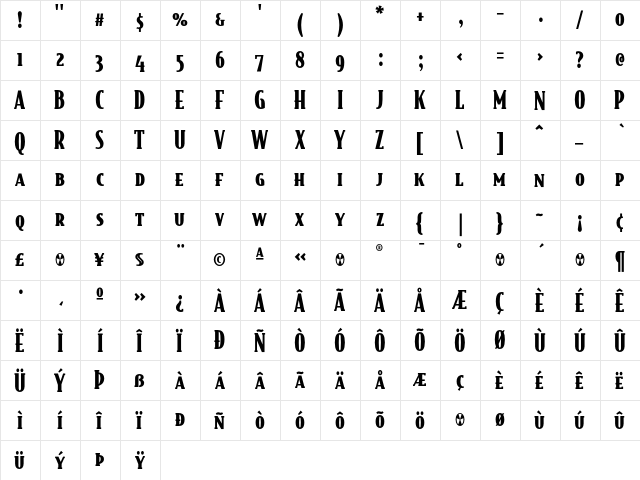
BodegaSerif BlackSmallcaps
Design Context for BodegaSerif Typeface
BodegaSerif brings classic typographic sensibility to the table — its serifs and measured letterforms reflect centuries of print heritage.